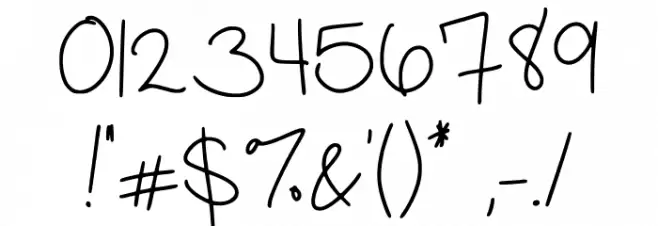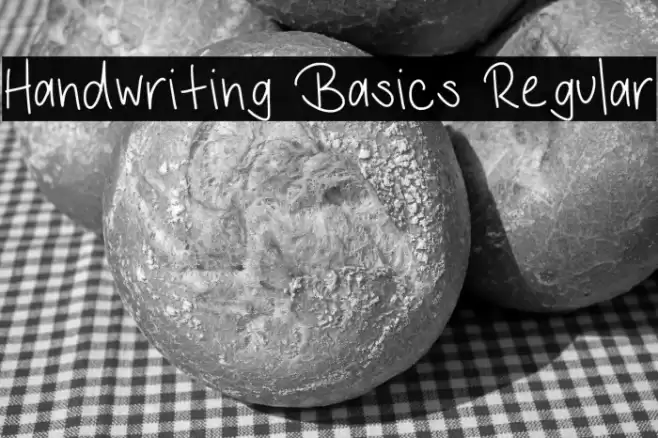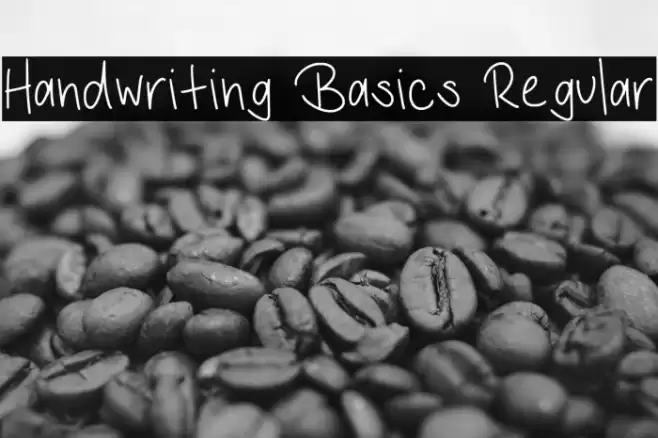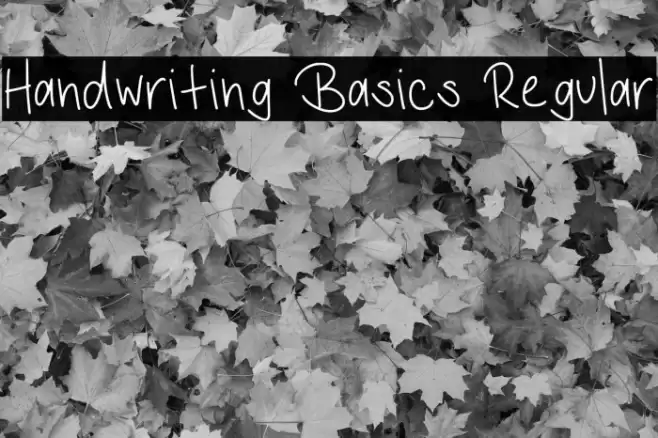
Handwriting Basics Regular Font
Handwriting Basics Regular Description
This font exudes a casual and approachable feel, reminiscent of natural handwriting. The letters are slightly uneven, adding to its charm and authenticity. The strokes are consistent in thickness, giving it a clean and legible appearance. The characters are well-spaced, ensuring readability while maintaining a playful aesthetic. Its simplicity and informal style make it versatile for various creative projects. The font includes a full set of uppercase and lowercase letters, numerals, and a range of special characters, making it suitable for diverse applications.
| Use Case | Informal text, Creative projects, Personal notes |
| Proposed Projects | Ideal for personal notes, invitations, greeting cards, and informal branding projects. |